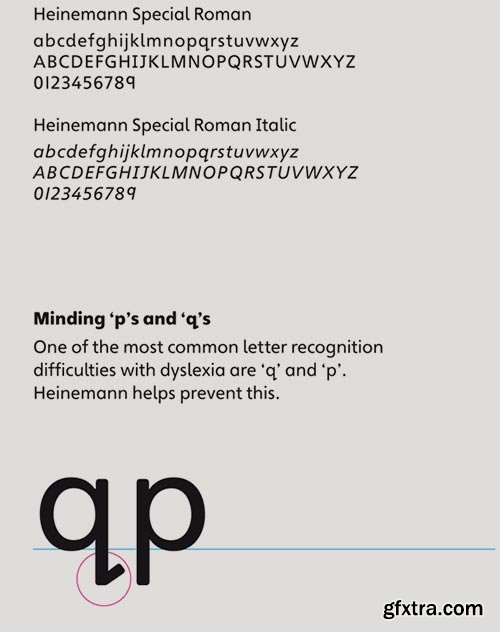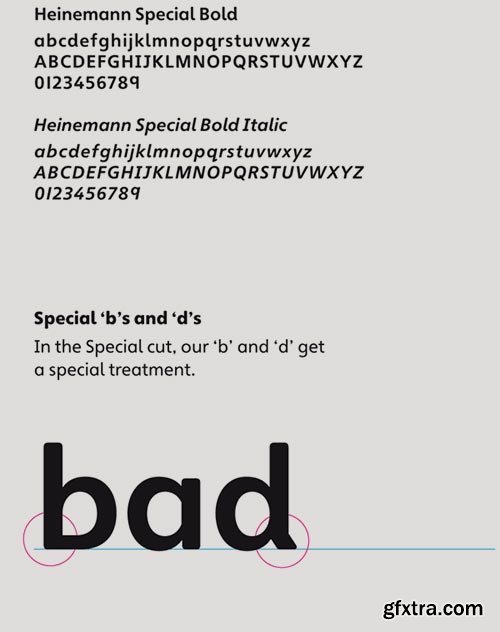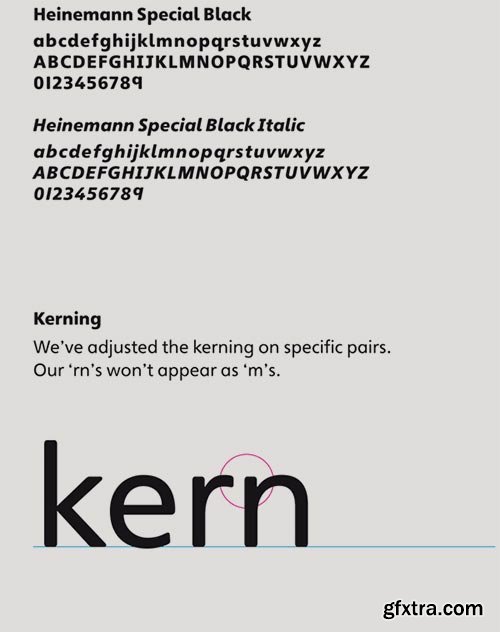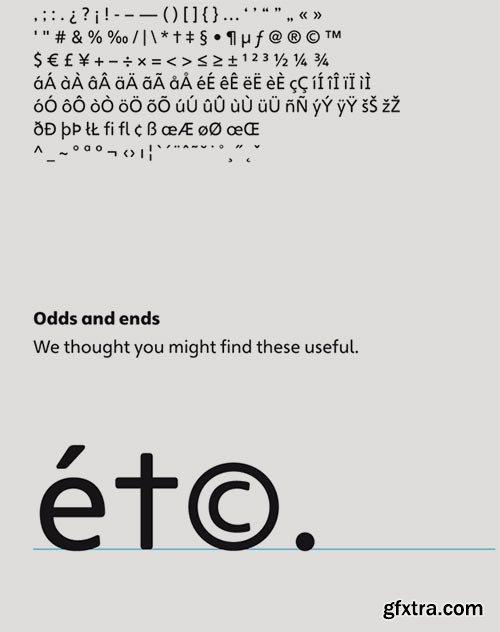
Typeface for Educational Publishing
- The Heinemann fonts were initially developed by the in-house design team at Heinemann educational publishing out of the necessity to find the perfect font for use in early primary reading books and literacy products. Basic Heinemann is defined by longer ascenders and descenders, which help children to distinguish between letters; rounded edges on all letterforms, which help the reader focus on the individual letter shape; and modified characters (eg., a and g), which ensure instant recognition of letterforms. Heinemann Special offers further modified characters and kerning pairs ideal for dyslexic or special-needs use (eg., a, d, and b). The Heinemann fonts were developed in partnership with children, literacy advisors, teachers of special needs/dyslexia, and primary-school teachers and are now available in response to hundreds of requests from publishers, designers, and teachers to purchase them. They have been tested in schools and learning institutions over an 8-year period, and they are a favorite for use in both print and electronic products. The modern, clean aesthetic of the fonts ensures that their use can spread beyond educational applications.